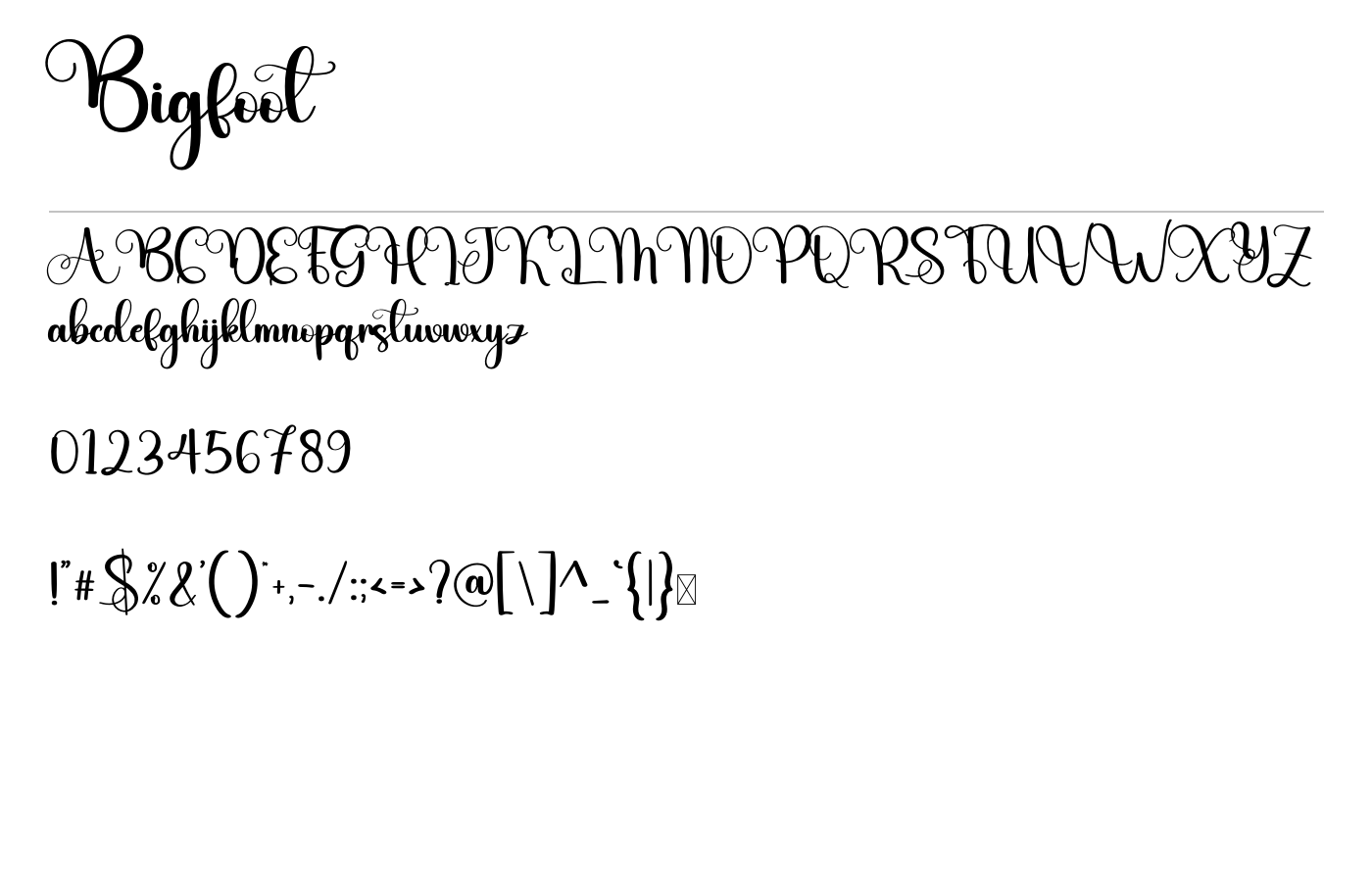
Bigfoot Font is a decorative script typeface featuring elegant, flowing letterforms with high contrast strokes and elaborate swirls, giving it a sophisticated and playful charm. Its tall, narrow uppercase letters combined with a lively lowercase set make it ideal for eye-catching headlines, invitations, or branding that seeks a feminine, whimsical, or artistic feel. Best suited for logos, packaging, and decorative purposes, this font adds a touch of elegance and creativity wherever it’s used.
Bigfoot Font
About Bigfoot Font